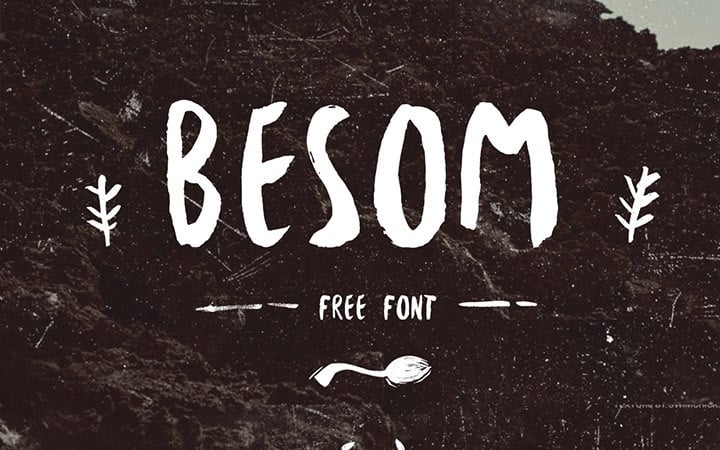
Besom - Handwritten brush font
The font was made as a complement to one of our latest art projects, to represent the concept of the idea into a visual typographical form. As it is drawn by hand with a brush the name "Besom" came naturally and as a sub-product of its functional being.